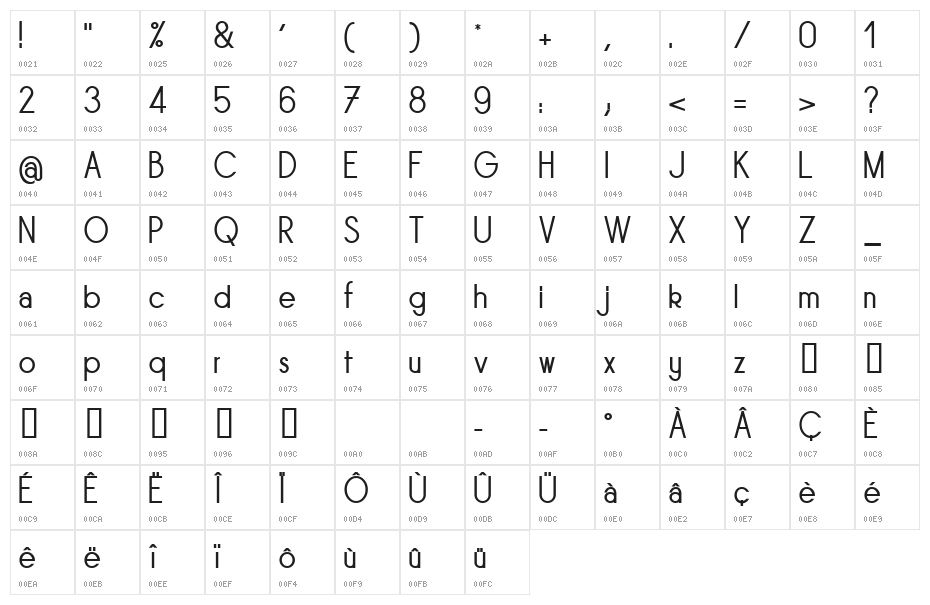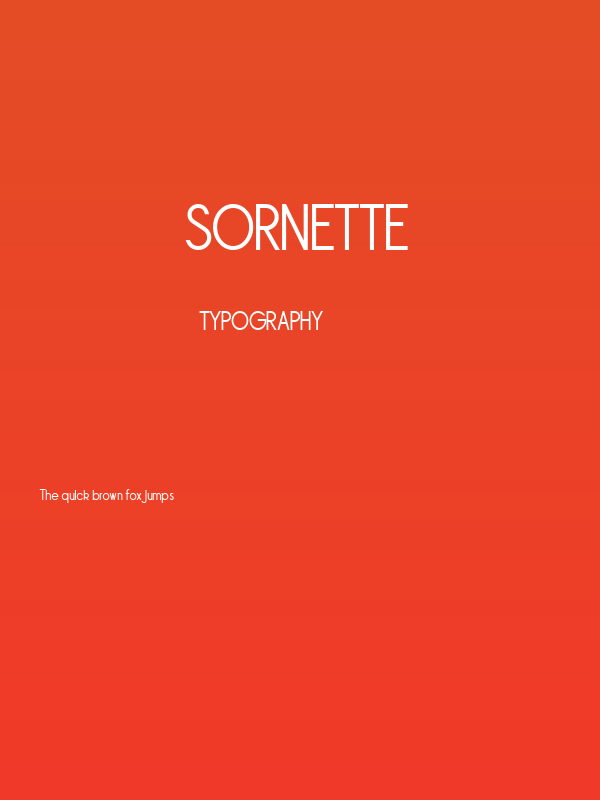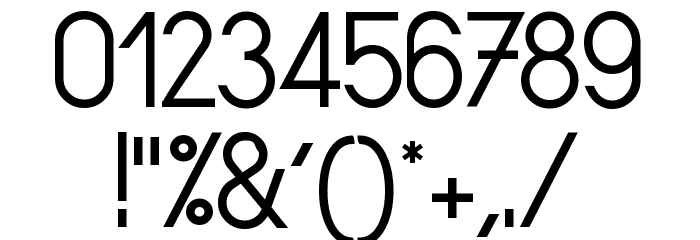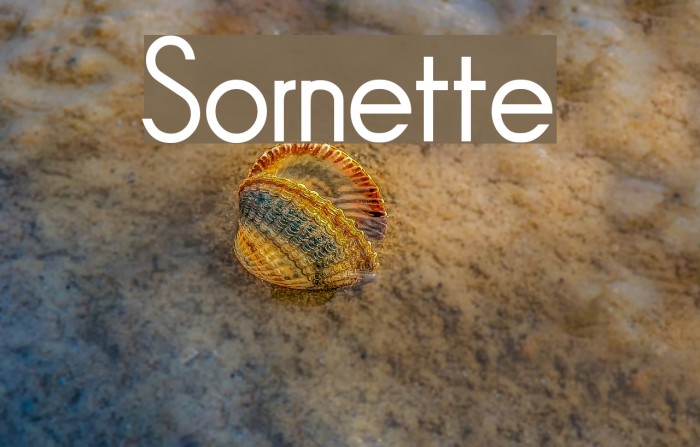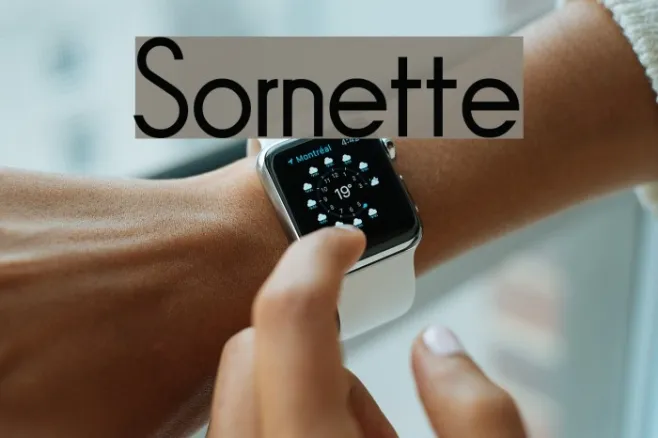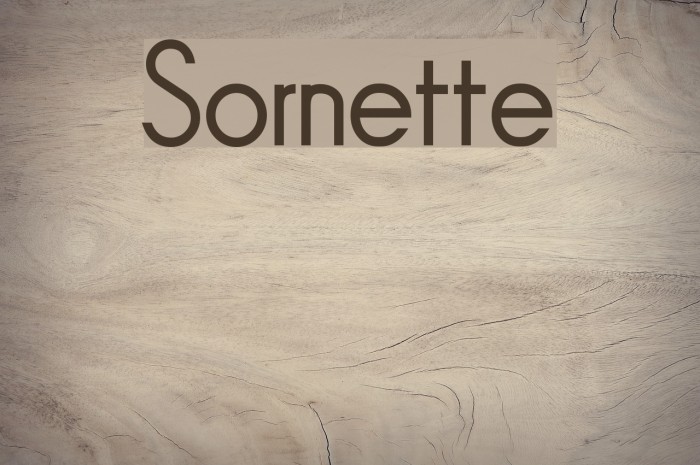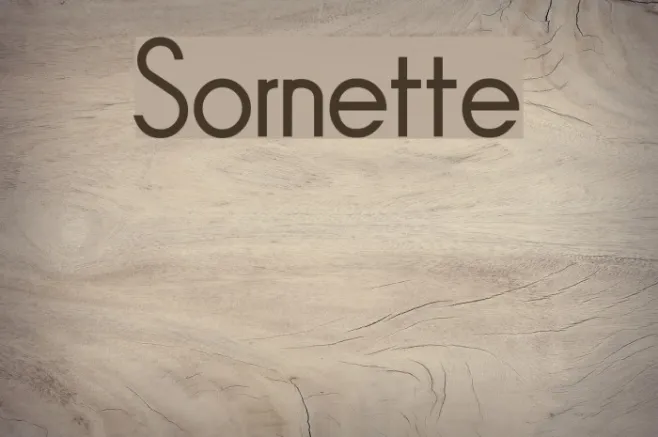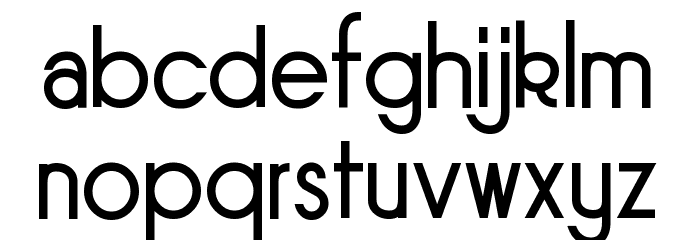
Sornette Font
Sornette Description
This font features a clean and modern sans-serif style with uniform stroke widths, giving it a sleek and contemporary appearance. The characters are well-proportioned with a geometric influence, evident in the circular shapes of the 'O' and '0', and the straight lines of the 'L' and 'T'. The uppercase letters are bold and commanding, while the lowercase letters maintain a consistent and harmonious flow. The numerals are clear and easily distinguishable, making them suitable for various applications. Special characters are included, maintaining the same design consistency, which enhances the font's versatility.